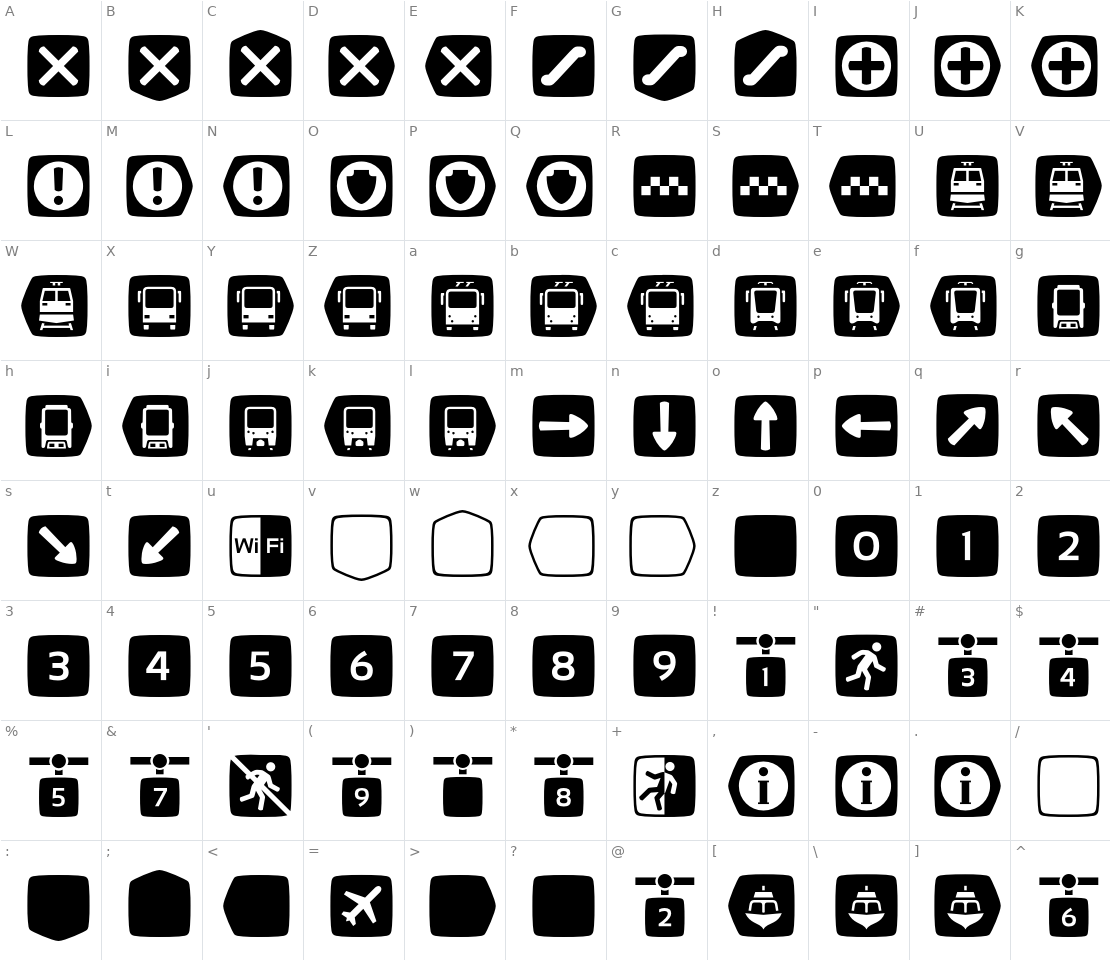
Metrofont
Metrofont is a pictogram font by Denis Serikov built around metro and urban transportation symbols, including directional arrows, navigation icons, and transit signage. The clean, simple shapes read clearly at a range of sizes, making it a practical resource for wayfinding systems, transit maps, and urban-themed design work where you need consistent iconography without pulling in a full illustration set.